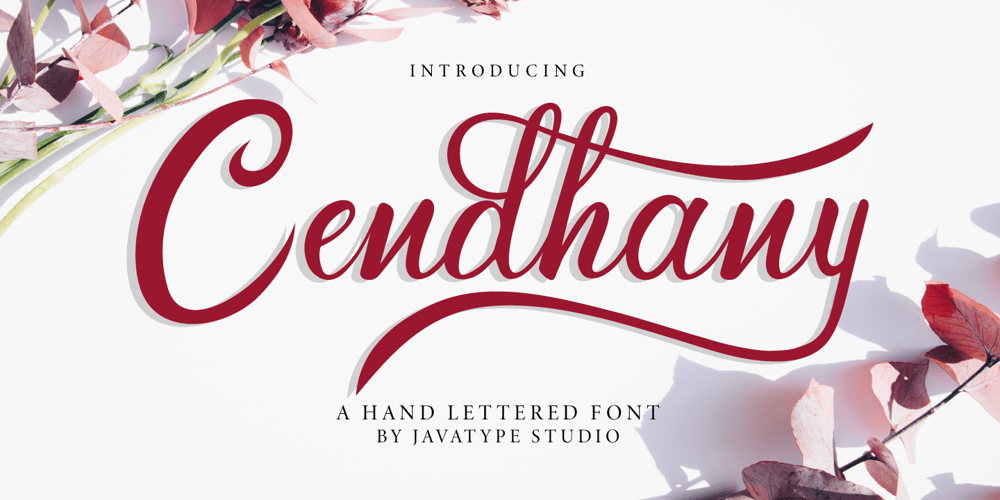
Cendhany Font Family was designed by Tio Yulianto and published by Javatypestd. Cendhany contains 1 styles and family package options. Introducing Cendhany is a hand lettered typeface. This font is made by handwriting naturally using a brush pen so it can produce good quality fonts. They work perfectly for you who needs a typeface for headline, logotype, apparel, invitation, branding, packaging, wedding, advertising, etc. This typeface comes in uppercase, lowercase, punctuation, symbols, numerals, alternate, ligatures, etc also supports multilingual.